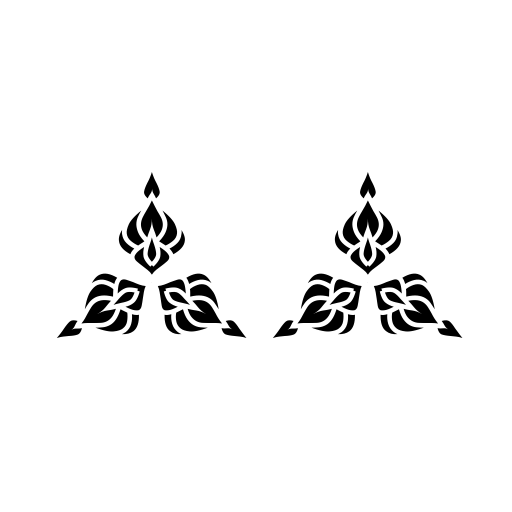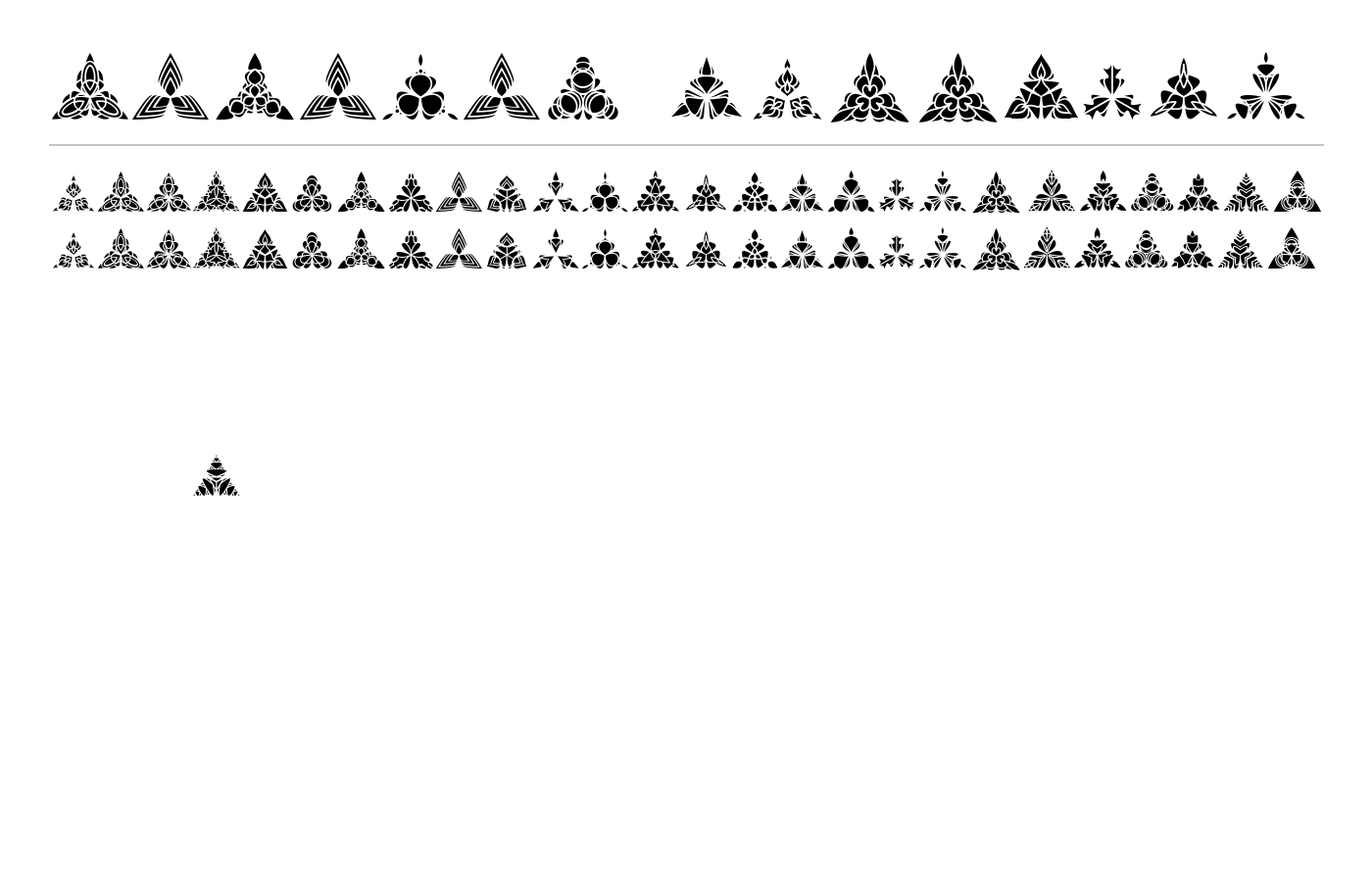
BIGILIW.Patterns is a decorative, ornamental font featuring intricate triangular motifs composed of layered, organic shapes with high contrast between thick and thin strokes. This unique pattern style evokes a hand-crafted, artistic feel, making it perfect for creative design projects, branding with a bohemian or tribal vibe, and eye-catching logos or packaging that demand a distinct visual flair. Its detailed and bold design works best in larger sizes where its complexity can be fully appreciated.
BIGILIW.Patterns Font
About BIGILIW.Patterns Font
| Font family | BIGILIW.Patterns Font |
| Designer | QKila |